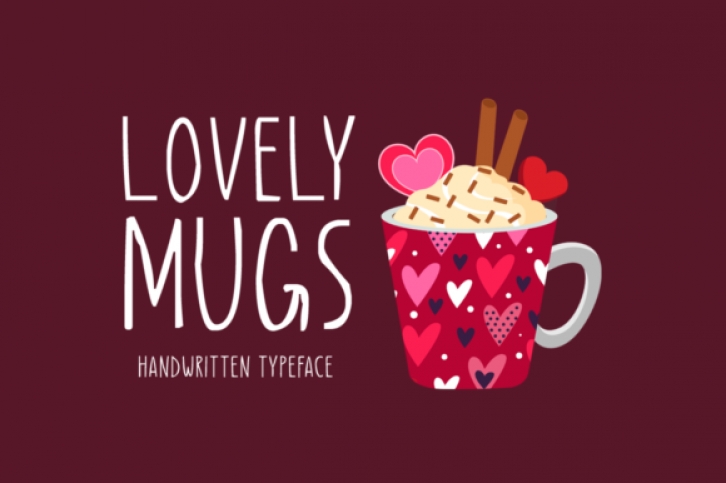
Lovely Mugs is a simple, readable and thin handwritten font. Its natural and unique style makes it incredibly fitting to a large pool of designs. The only limit is your imagination!